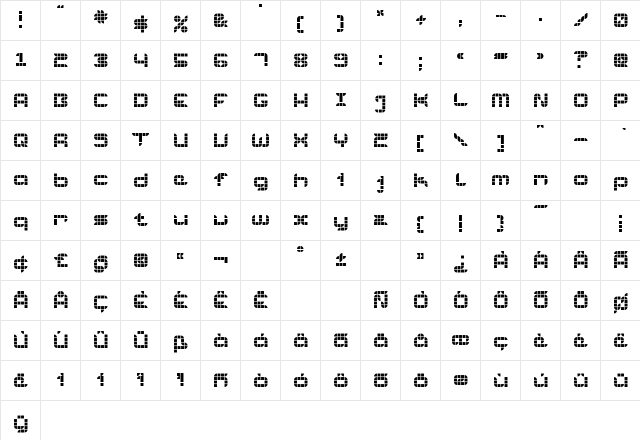
Euredice Regular
Design Context for Euredice Typeface
Euredice is a composed and adaptable typeface that performs quietly and consistently across a wide range of design contexts.